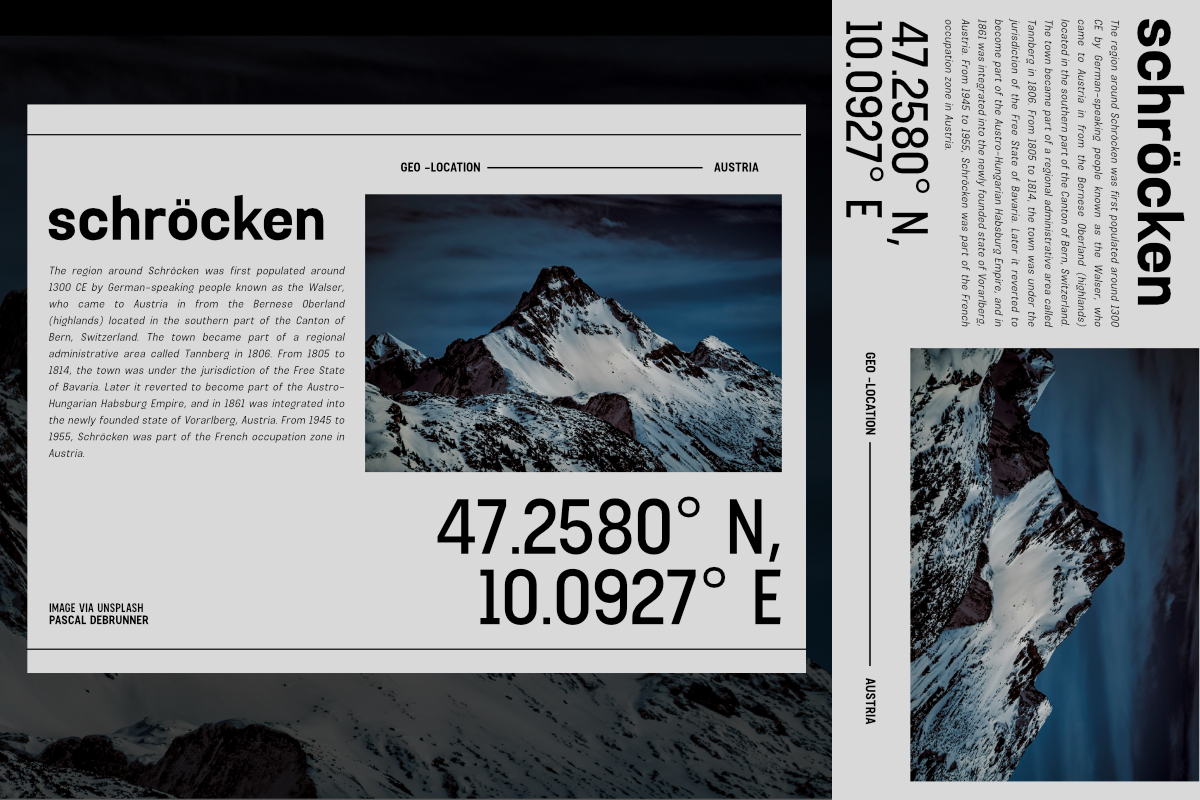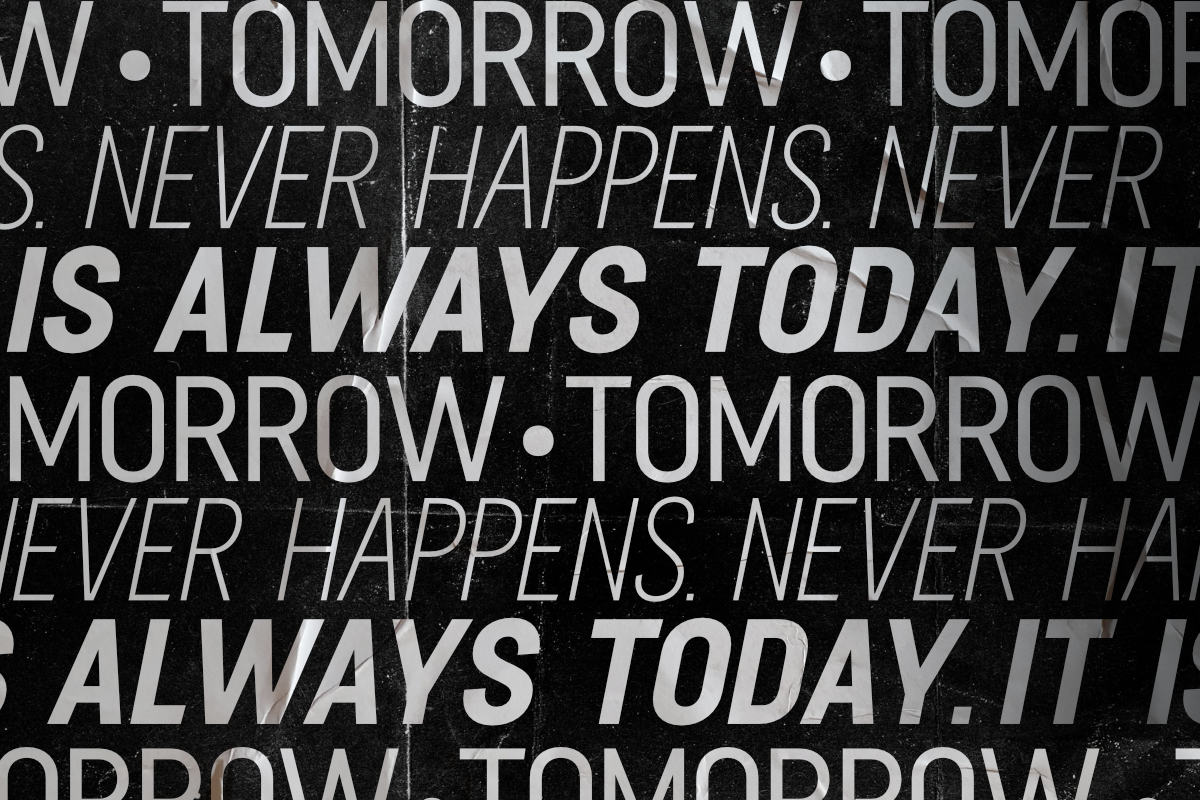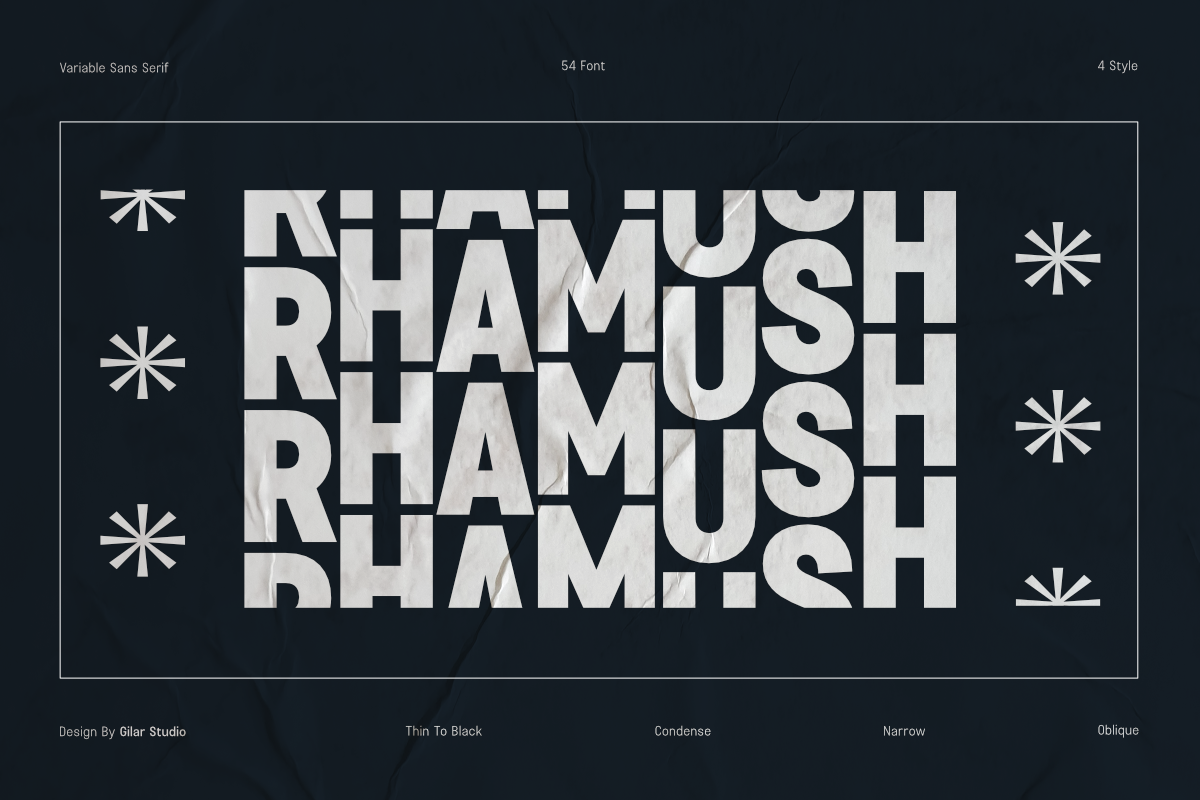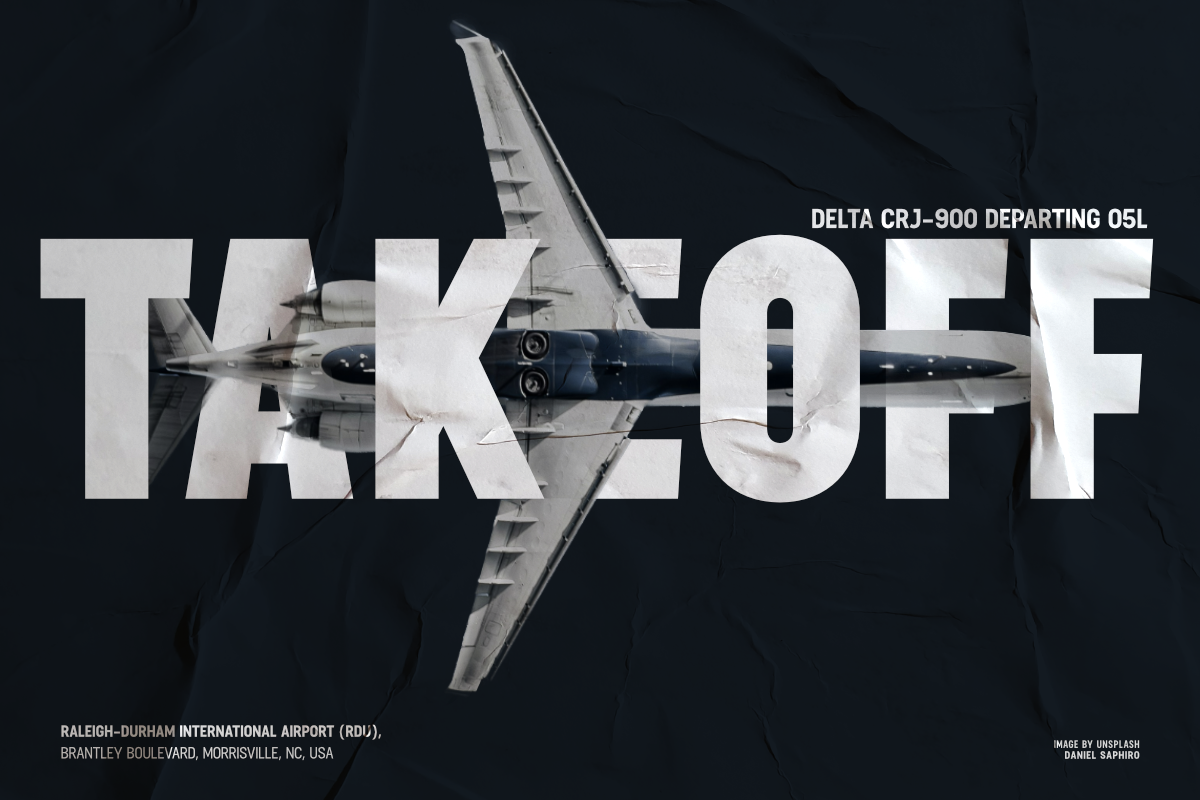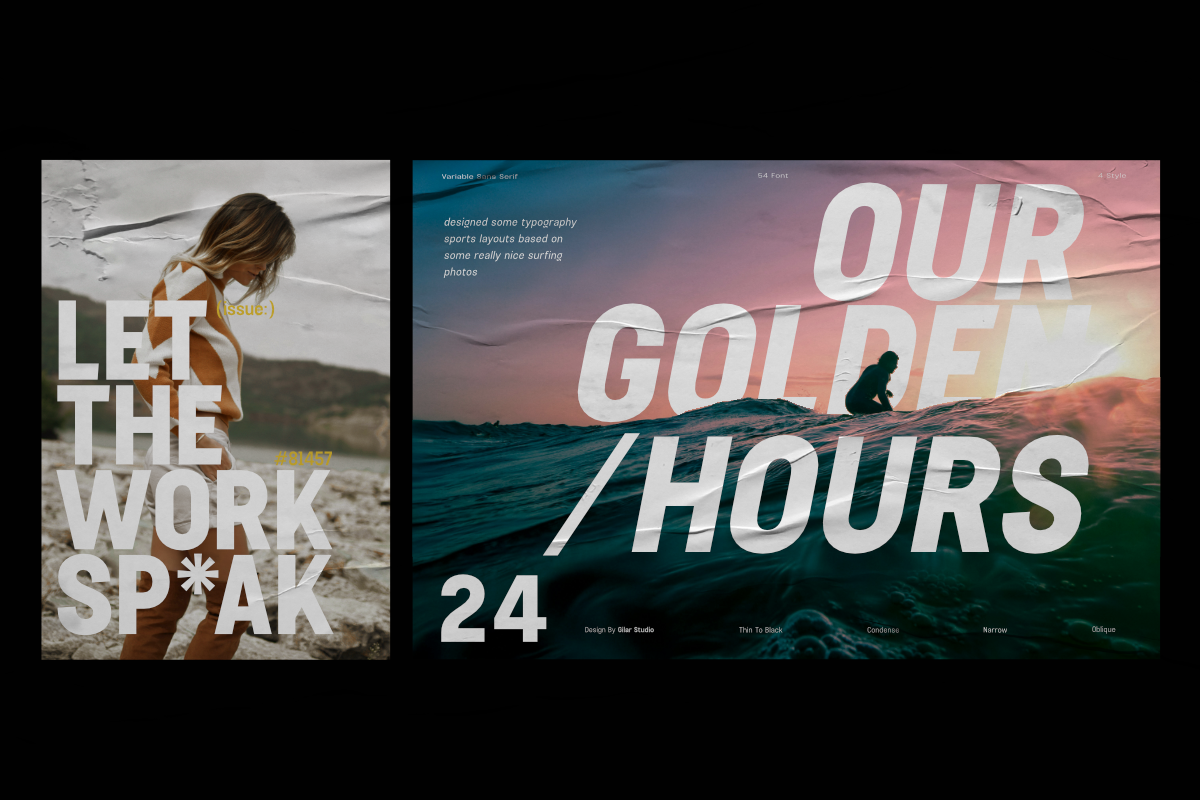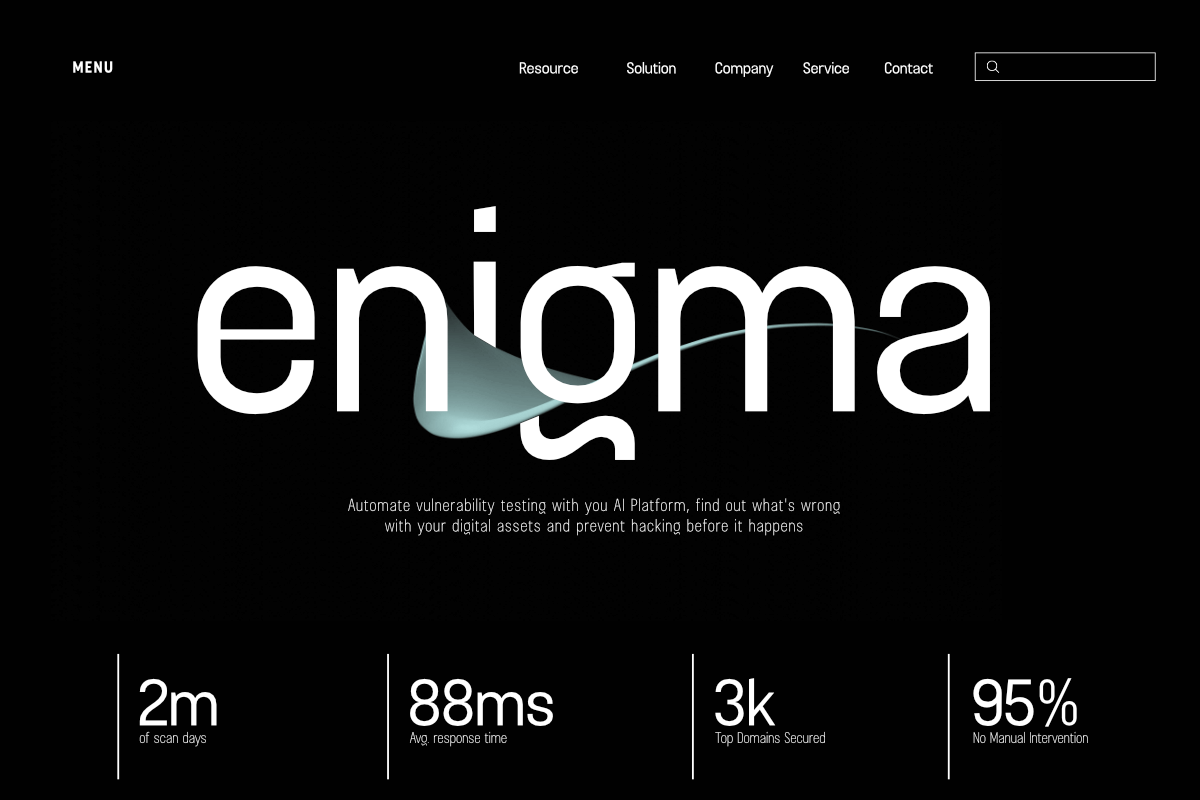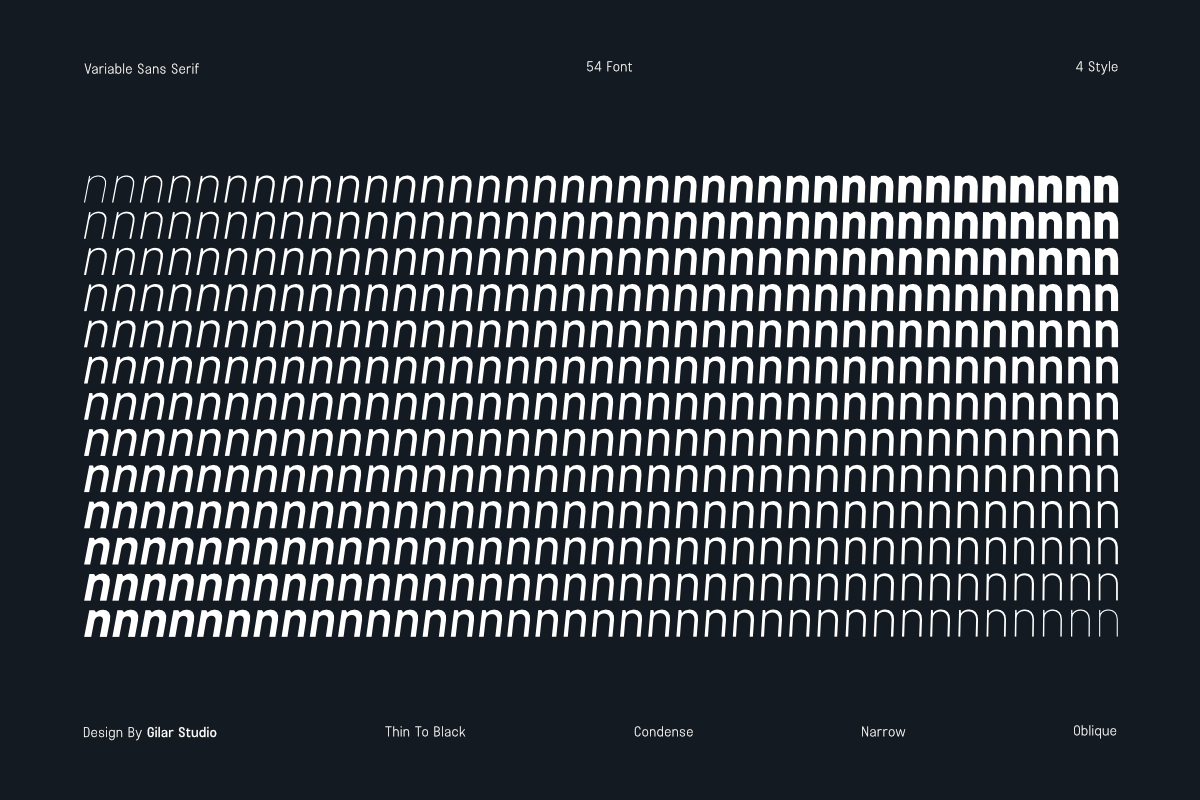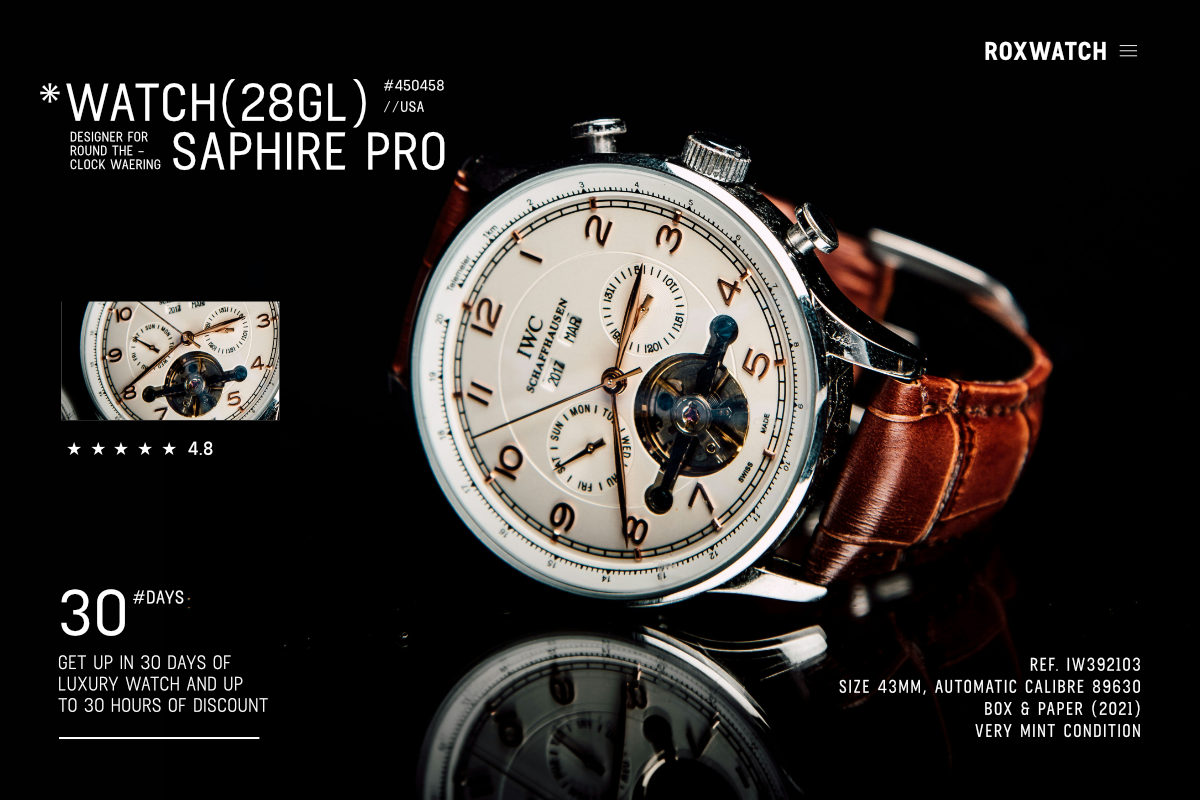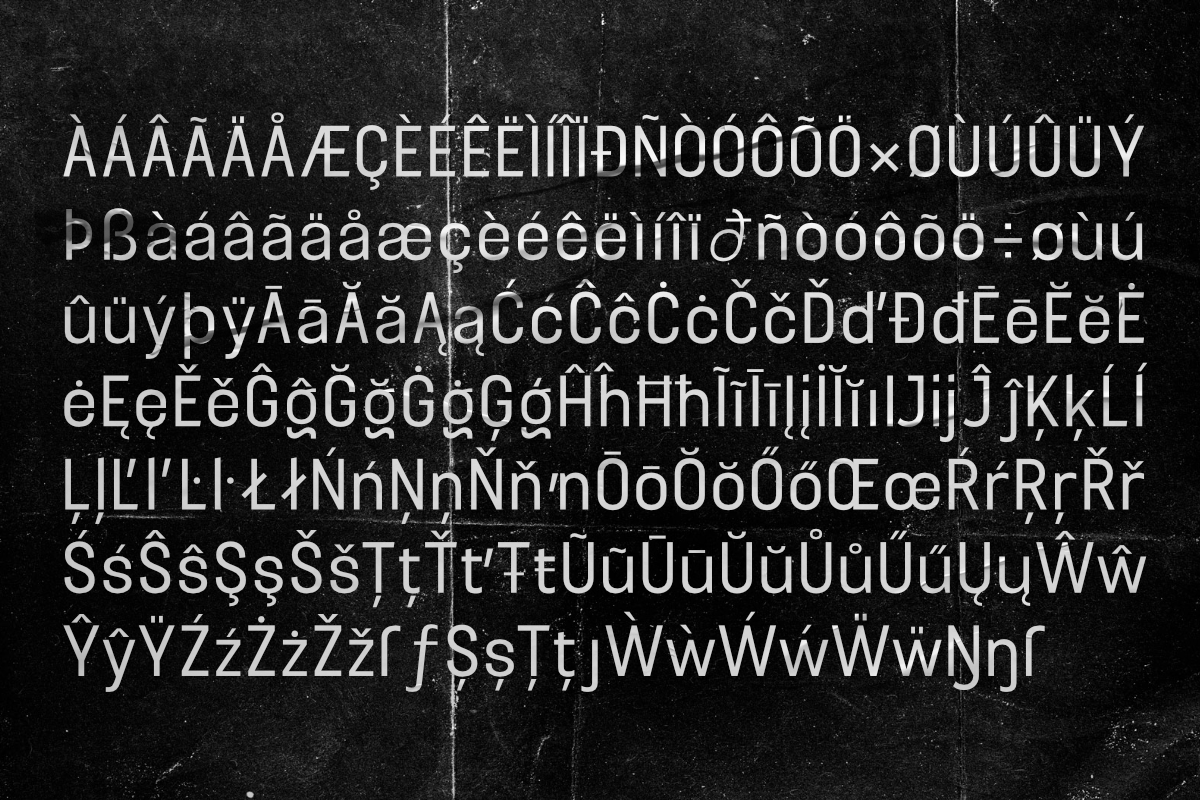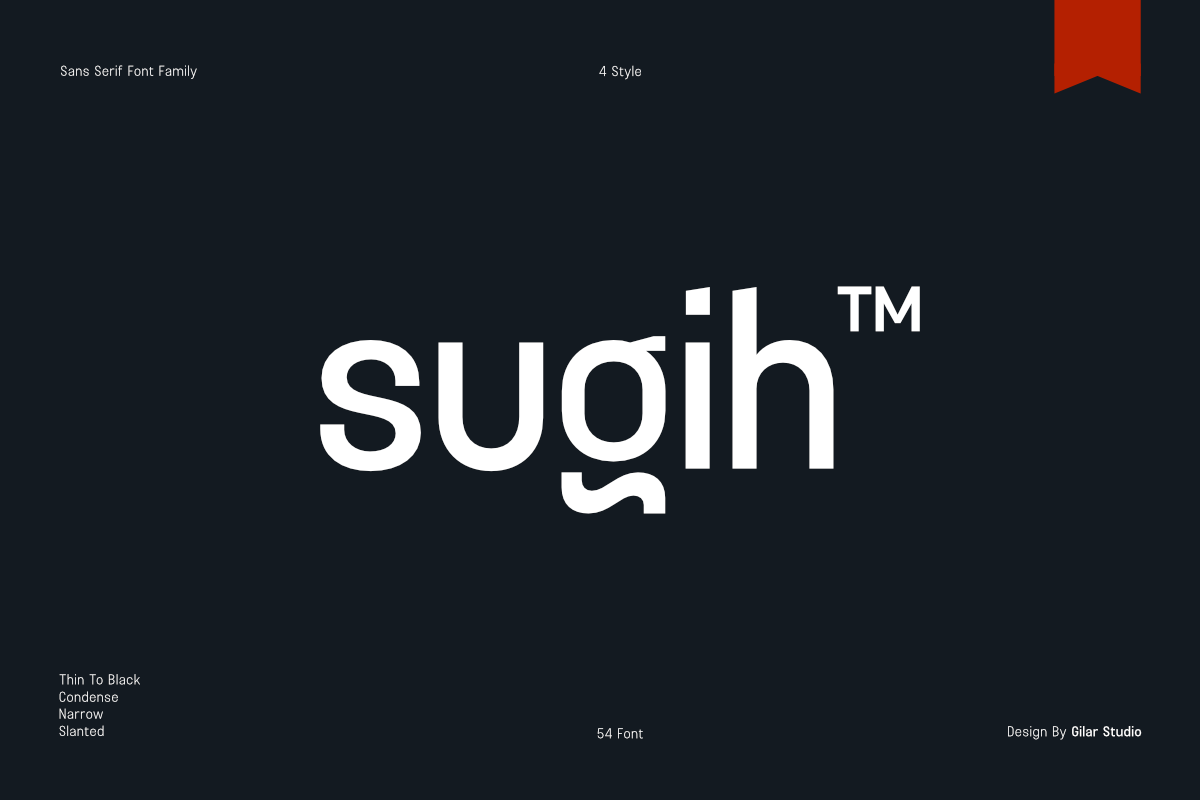
Sugih - Sans Serif Font Family
Sugih is a condensed sans font family that embodies modernity, versatility, boldness, and simplicity. Modernism was a mixed blessing for typography. Half a century before Helvetica and Univers, there were no type families: the designer who hoped to use different weights and widths was left to grope among an anarchic collection of unrelated styles. One font might be bold, another condensed, and only the occasional style might offer an Slanted. And while the rationalism of the type family brought order to the chaos, offering designers the promise that a sans serif with a Thin would also have a Bold, it also drove some of the world’s most colorful sans serifs into extinction. Picking up where this project left off is Sugih, a sans serif shaped by new challenges, new influences, and new ideas.
Inspired by the classic grotesque typefaces - Sugih has his own unique style, expressed in perfectly softened geometric forms. The font family is most suitable for headlines of all sizes, as well as for text blocks that come in both maximum and minimum variations. Sugih font styles are applicable for any type of graphic design in web, print, motion graphics etc and perfect for t-shirts and other items like posters and logos. Sugih’s blend of modern simplicity and bold character ensures that your designs will make a lasting impression across diverse mediums.